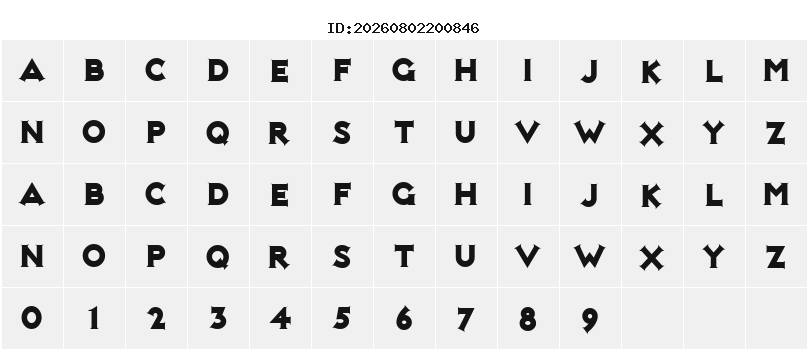
• Font Name: NotMaryKate
• Designer: Nick Curtis
• Manufacturer: Nick's Fonts
About NotMaryKate.ttf
NotMaryKate.ttf is a modern, elegant sans-serif font designed for ultimate readability and visual harmony. Perfect for branding, headlines, web design, and print materials.